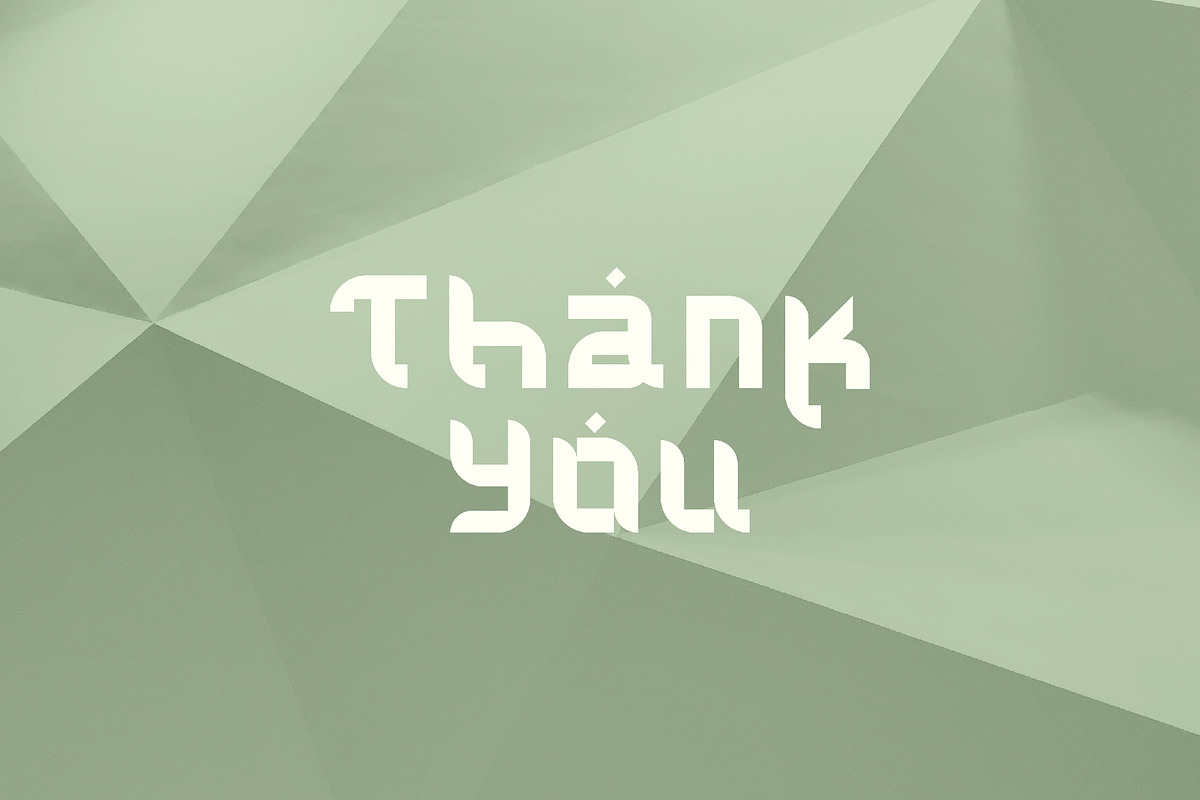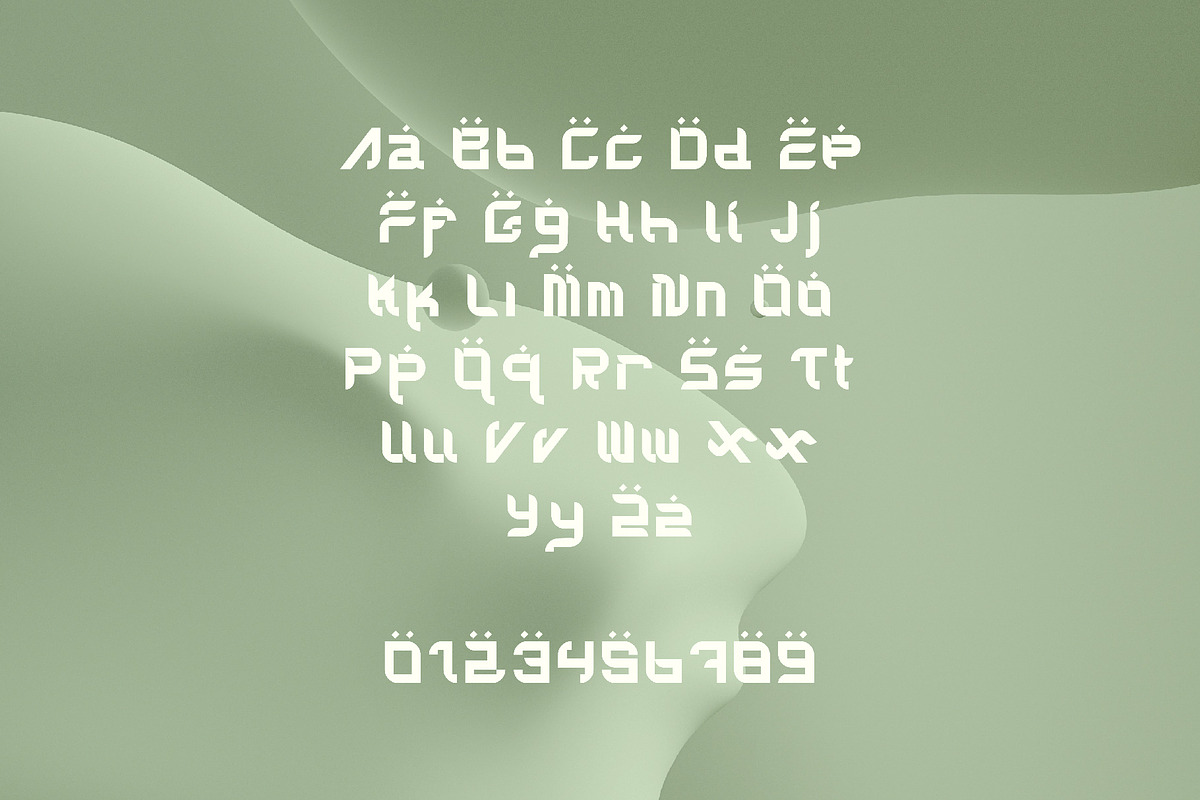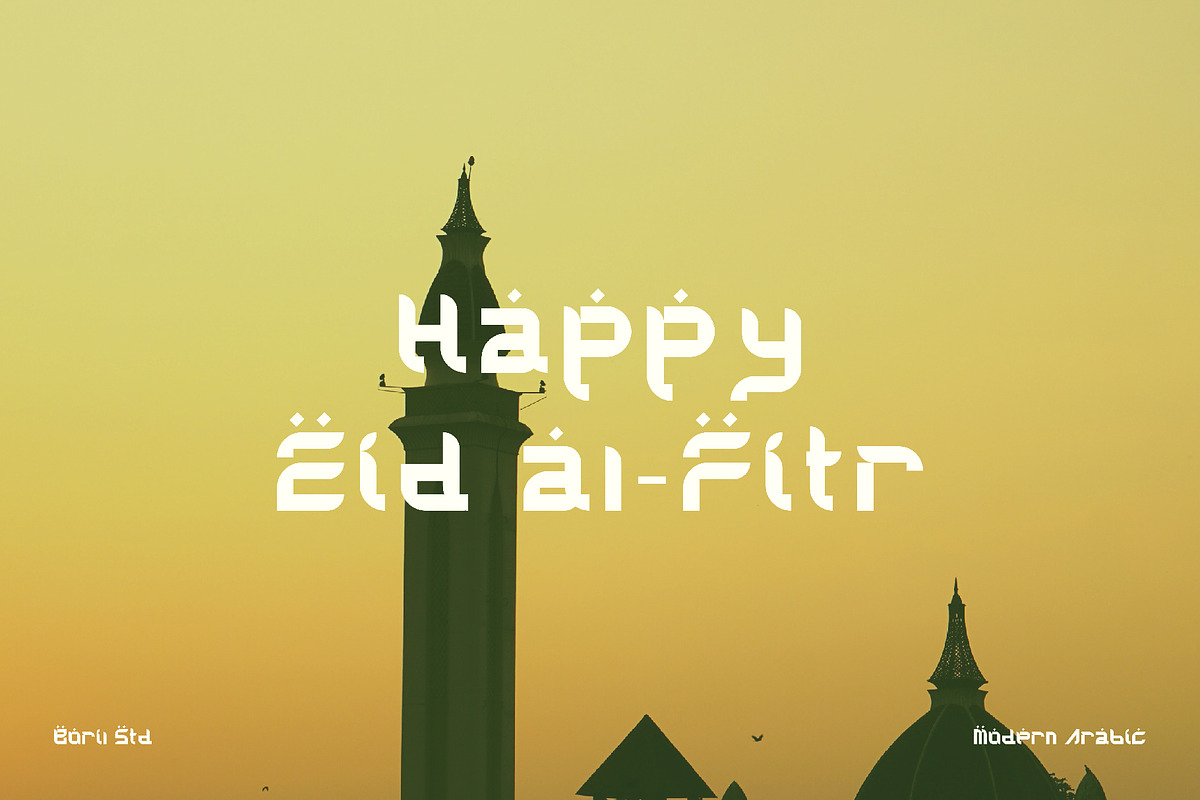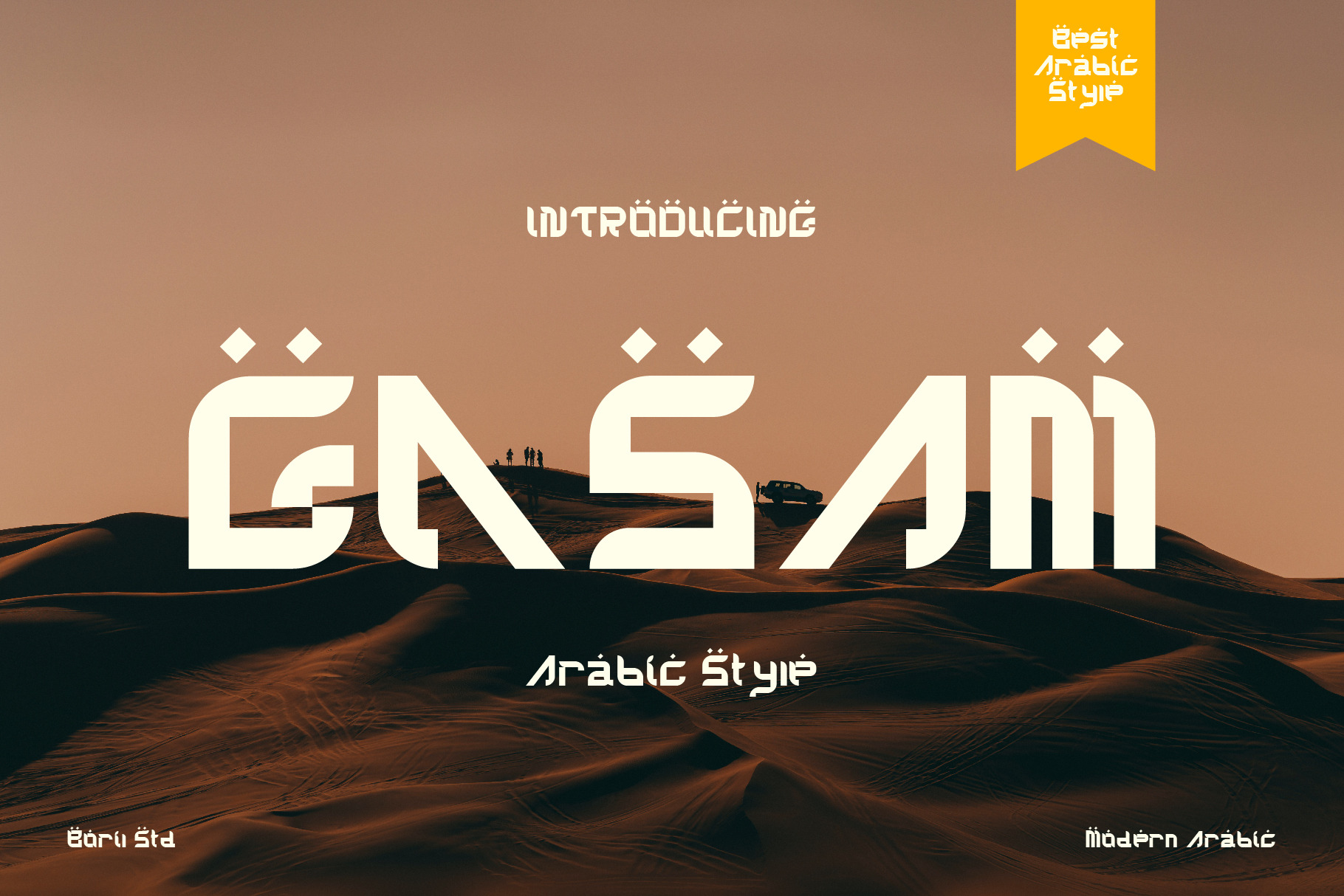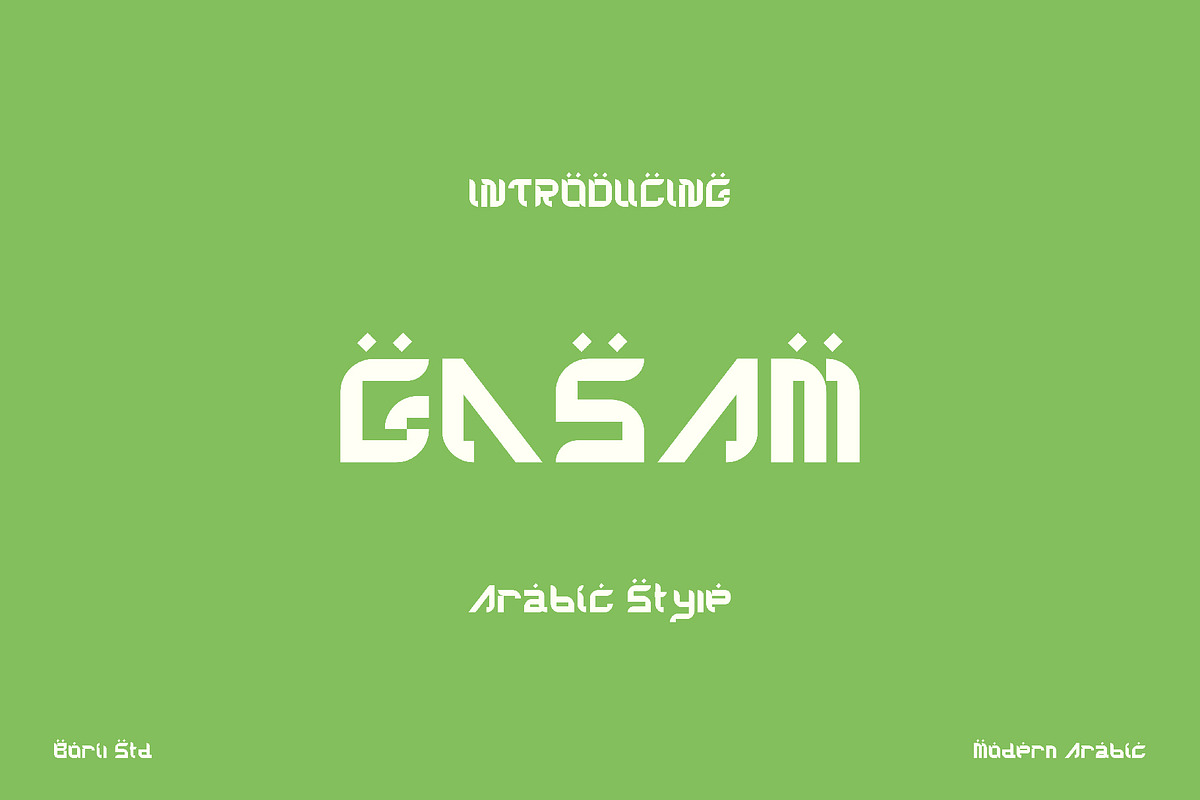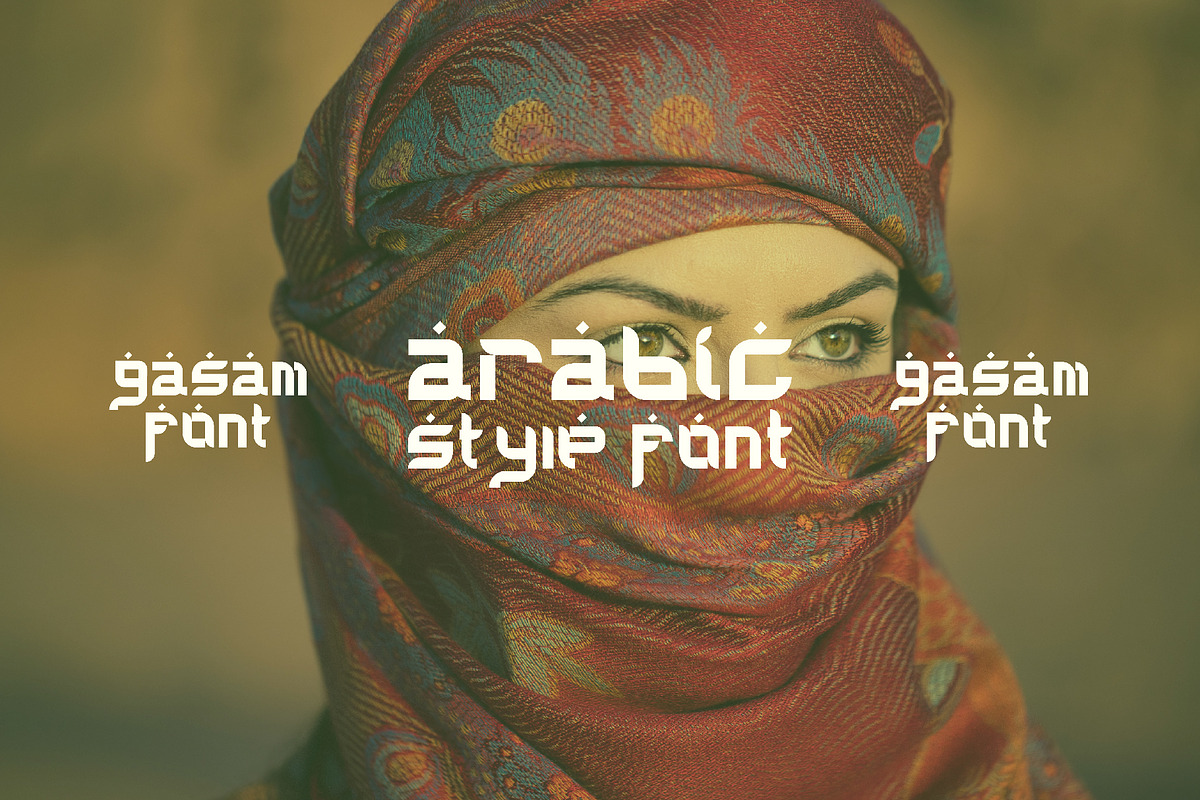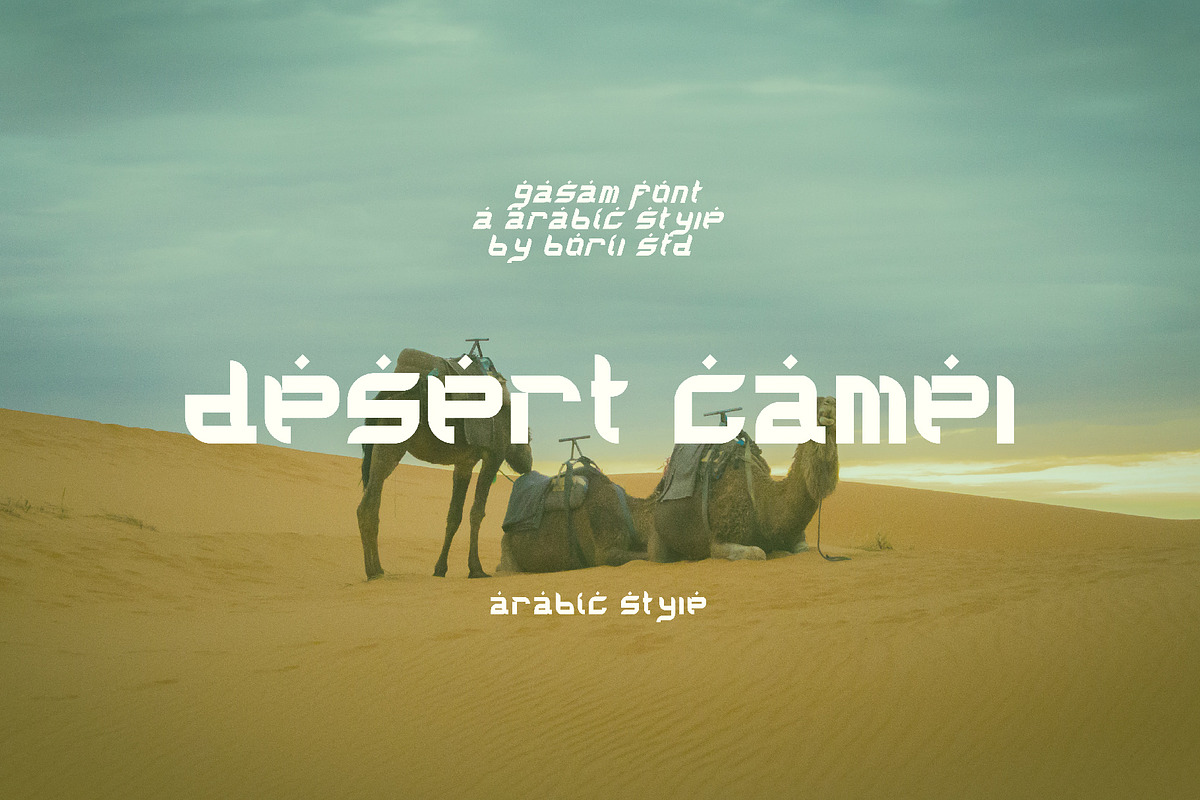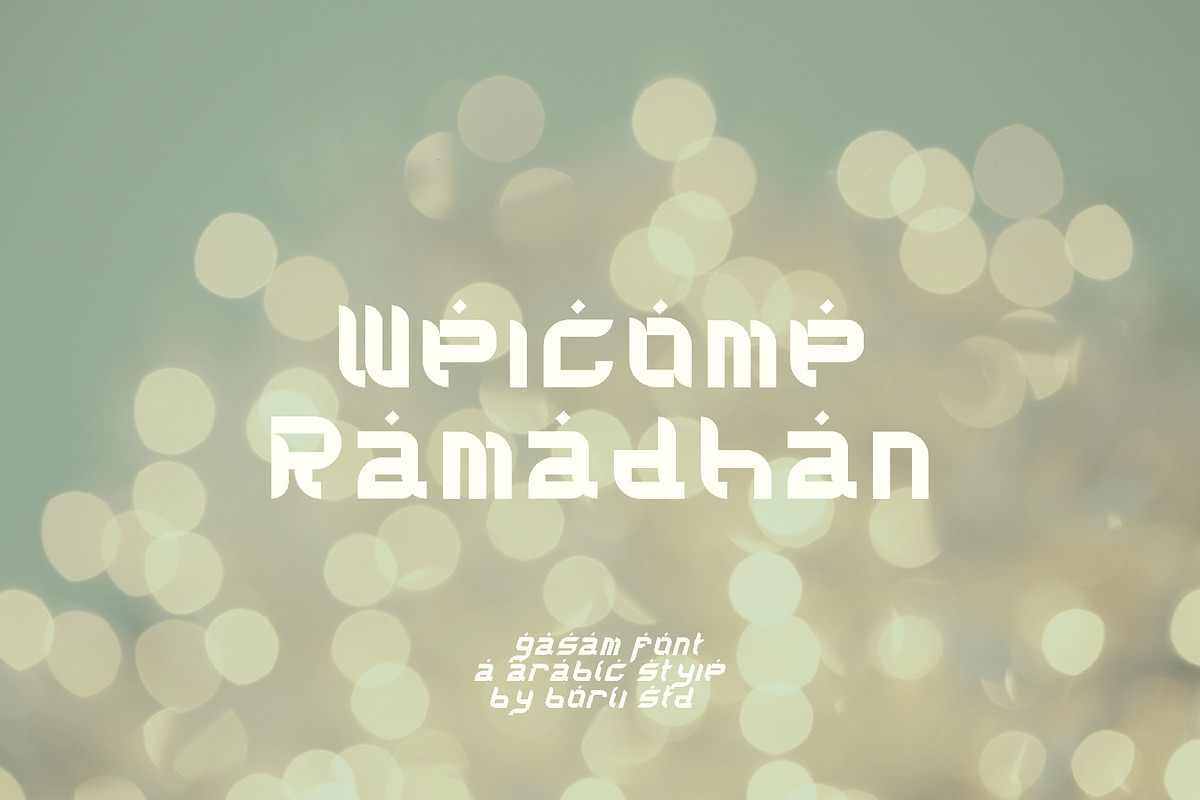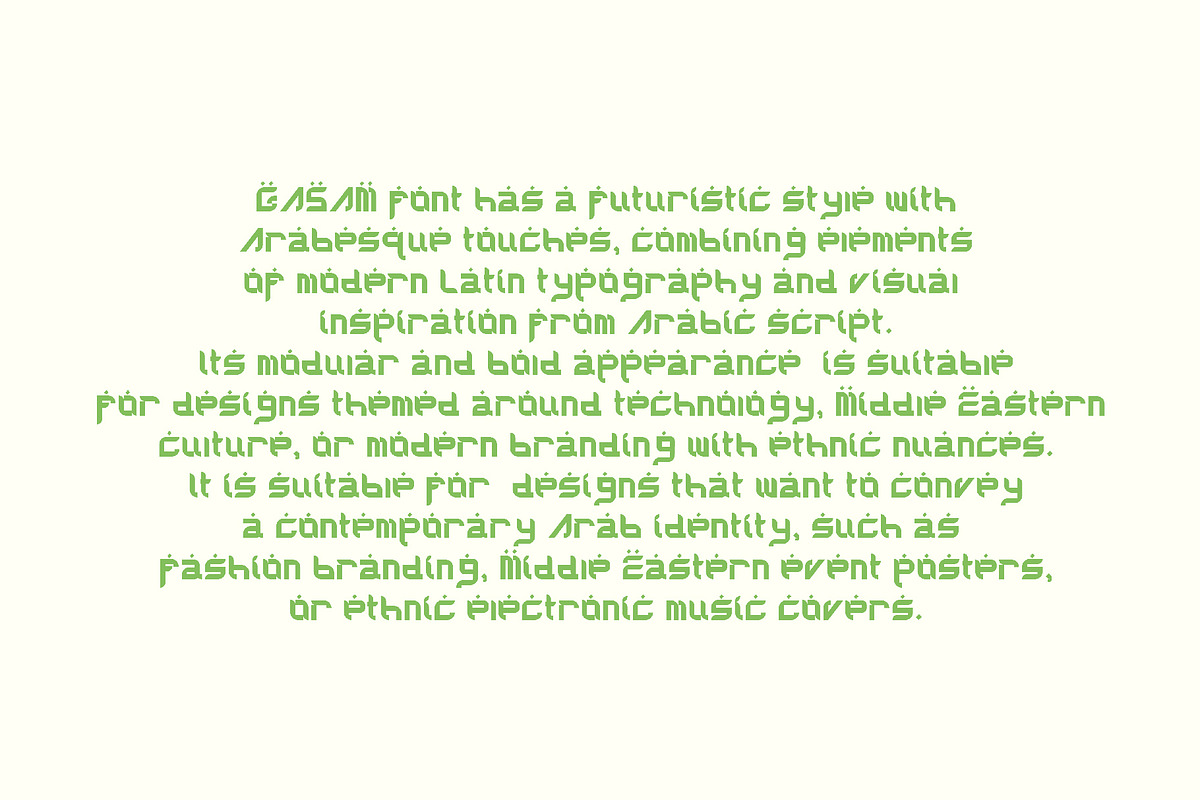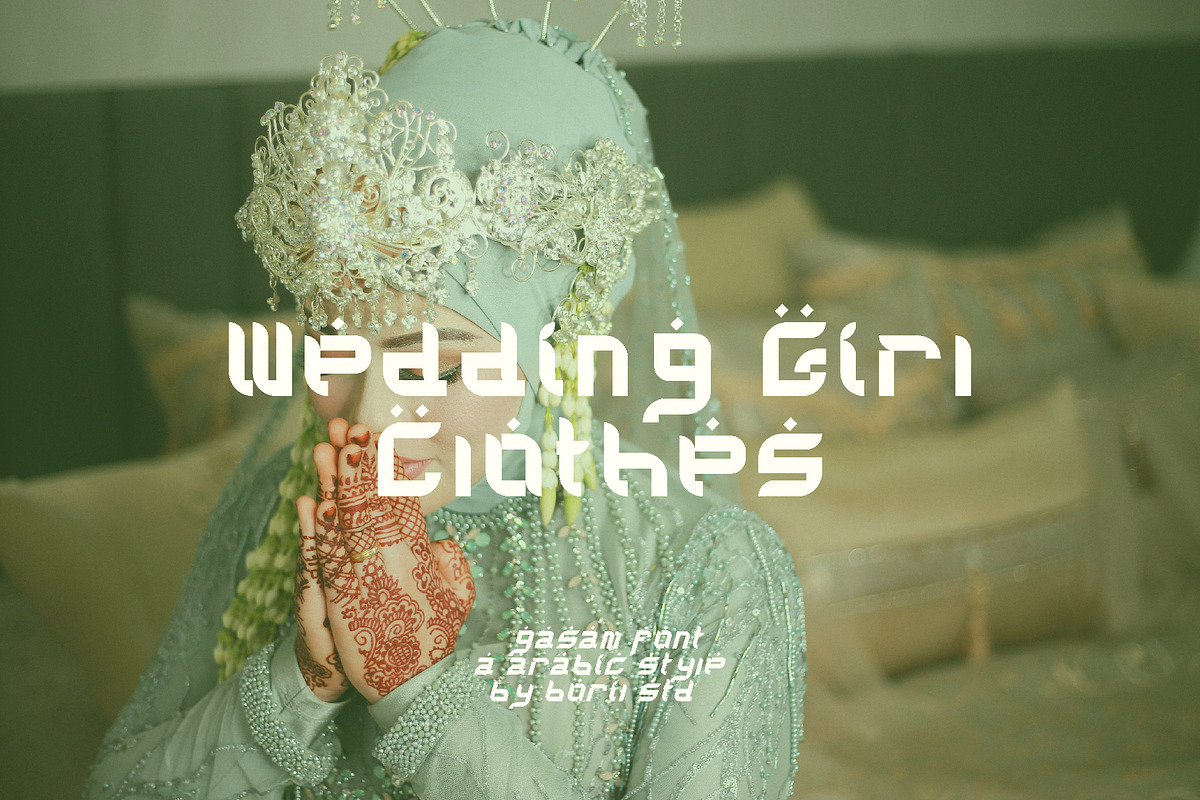
Gasam - Arabic Style Font
GASAM font has a futuristic style with Arabesque touches, combining elements of modern Latin typography and visual inspiration from Arabic script. Its modular and bold appearance is suitable for designs themed around technology, Middle Eastern culture, or modern branding with ethnic nuances. It is suitable for designs that want to convey a contemporary Arab identity, such as fashion branding, Middle Eastern event posters, or ethnic electronic music covers.